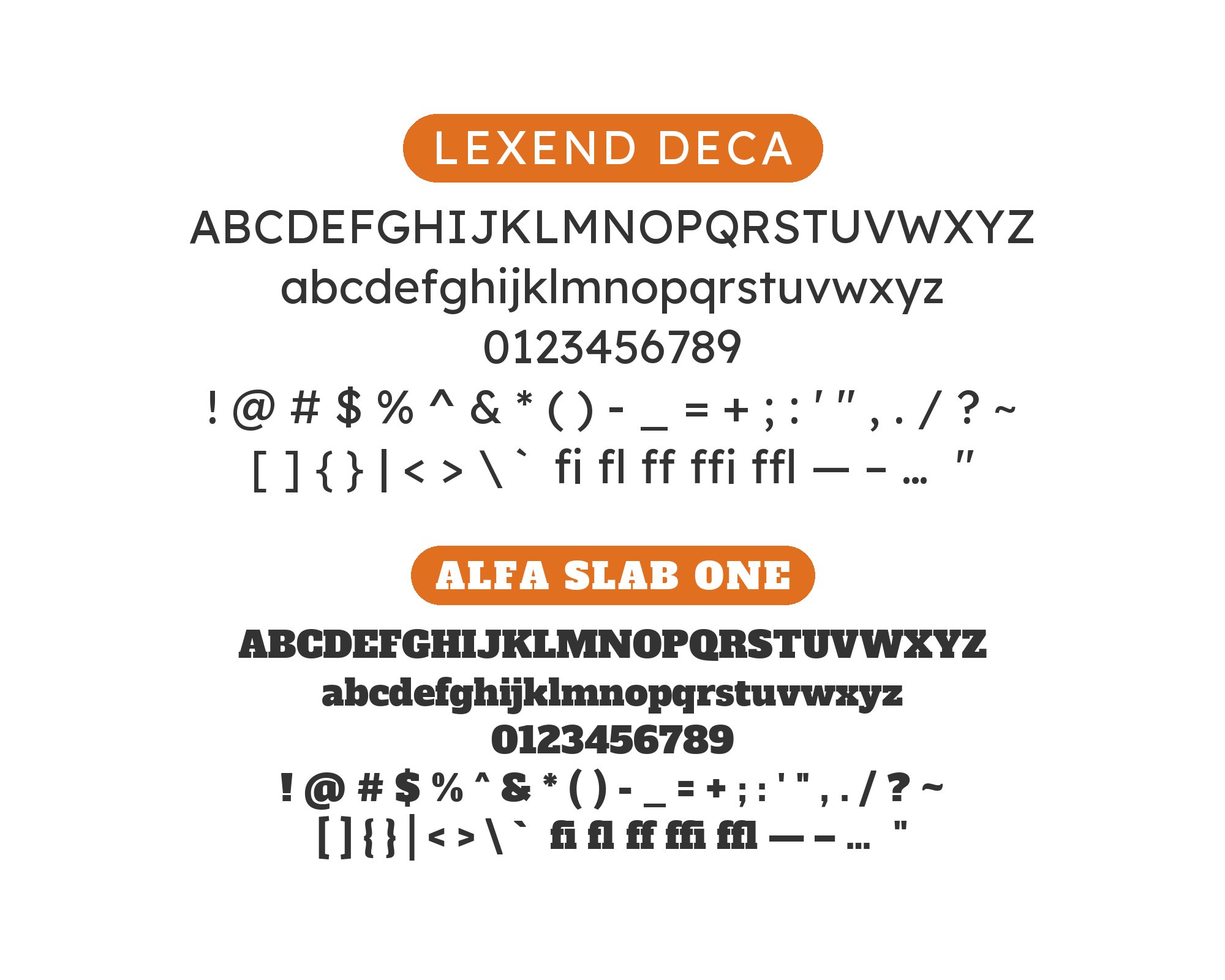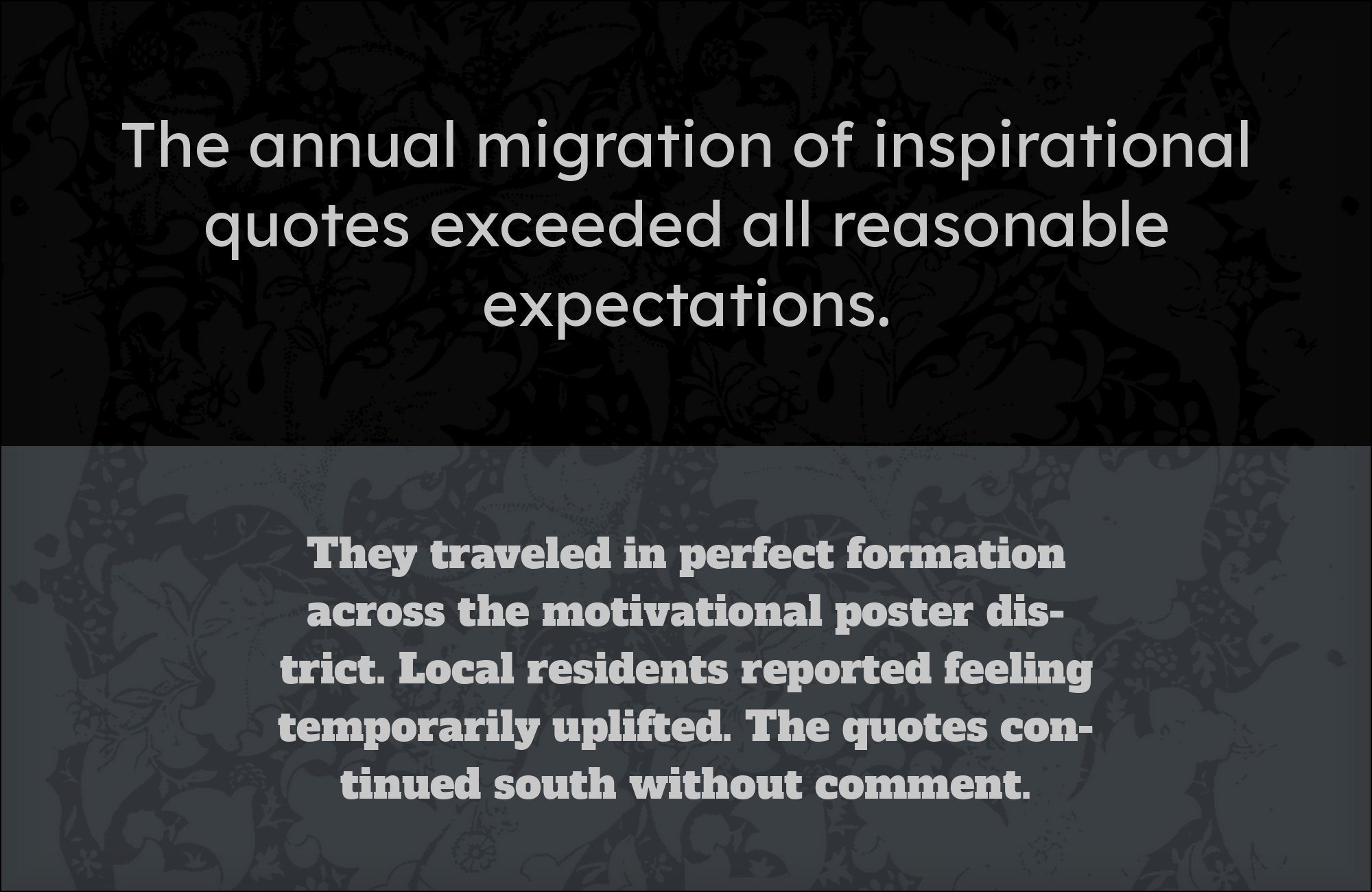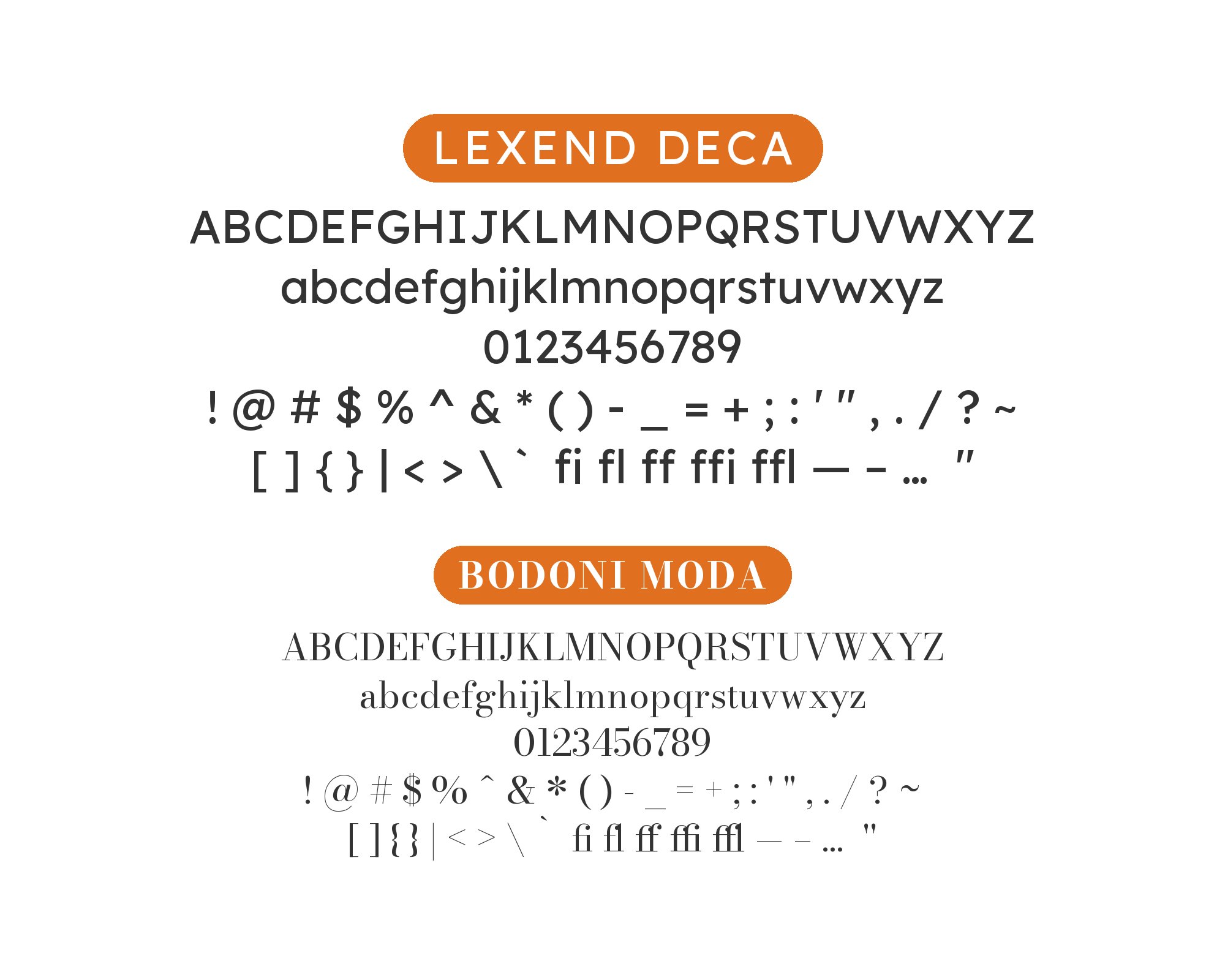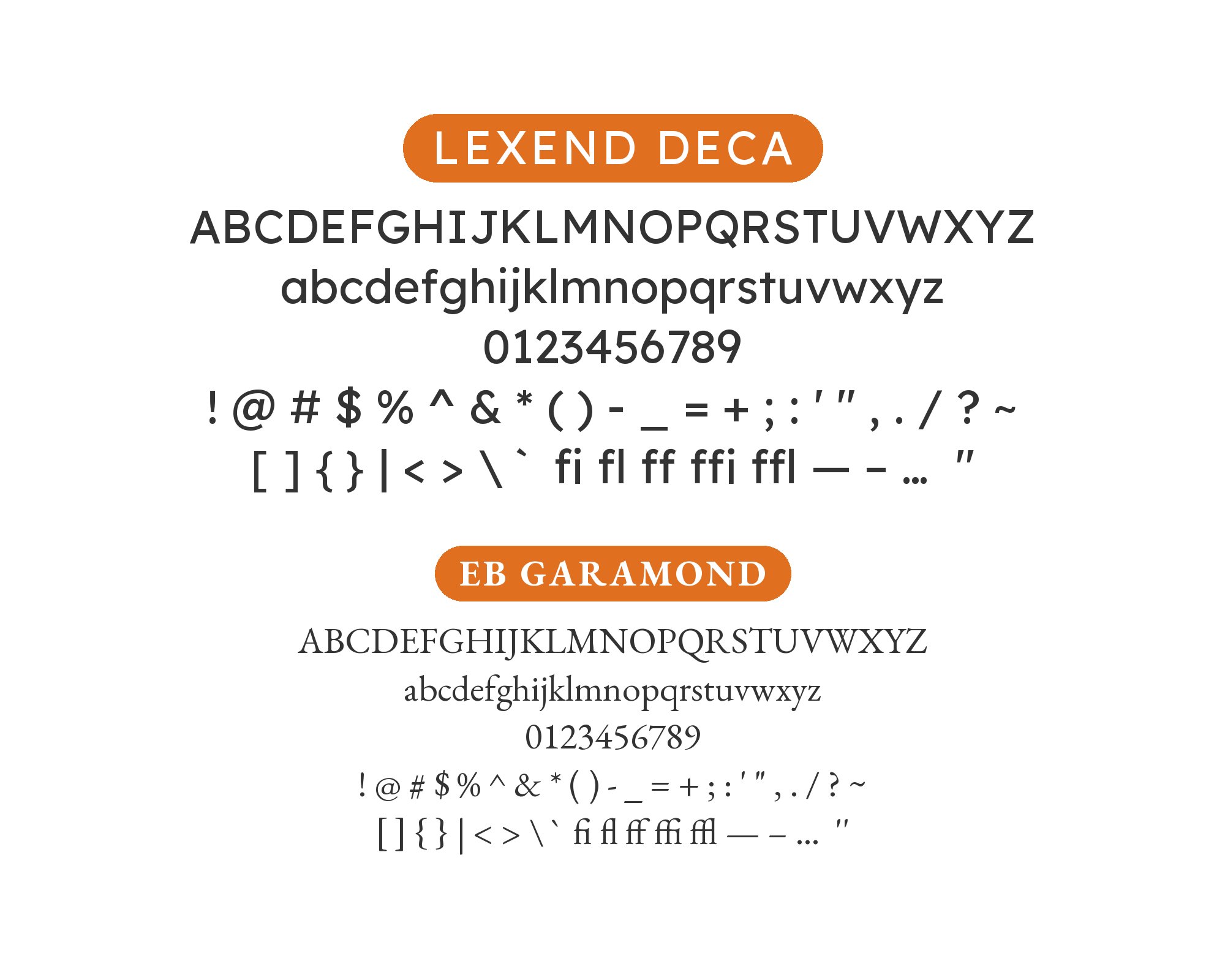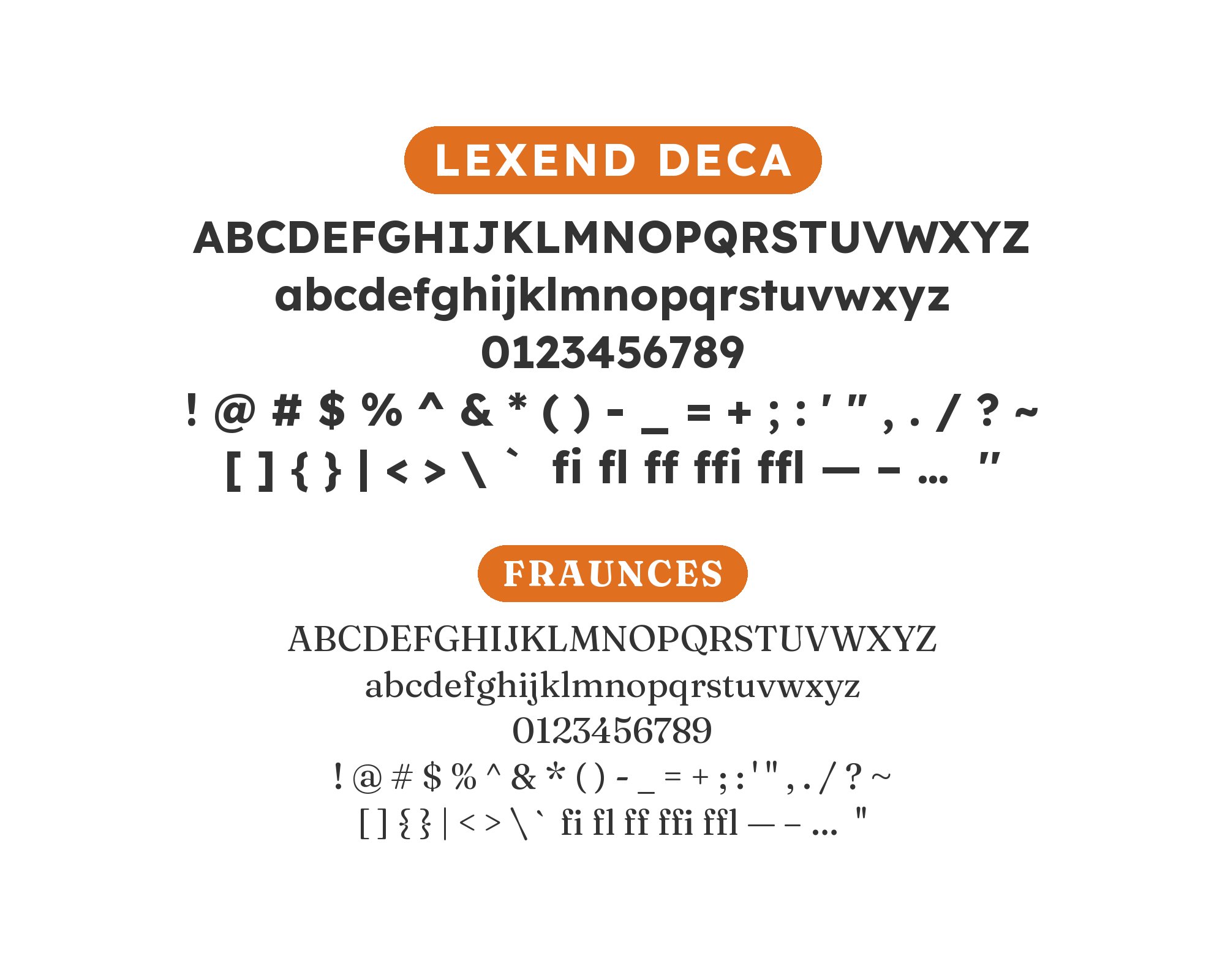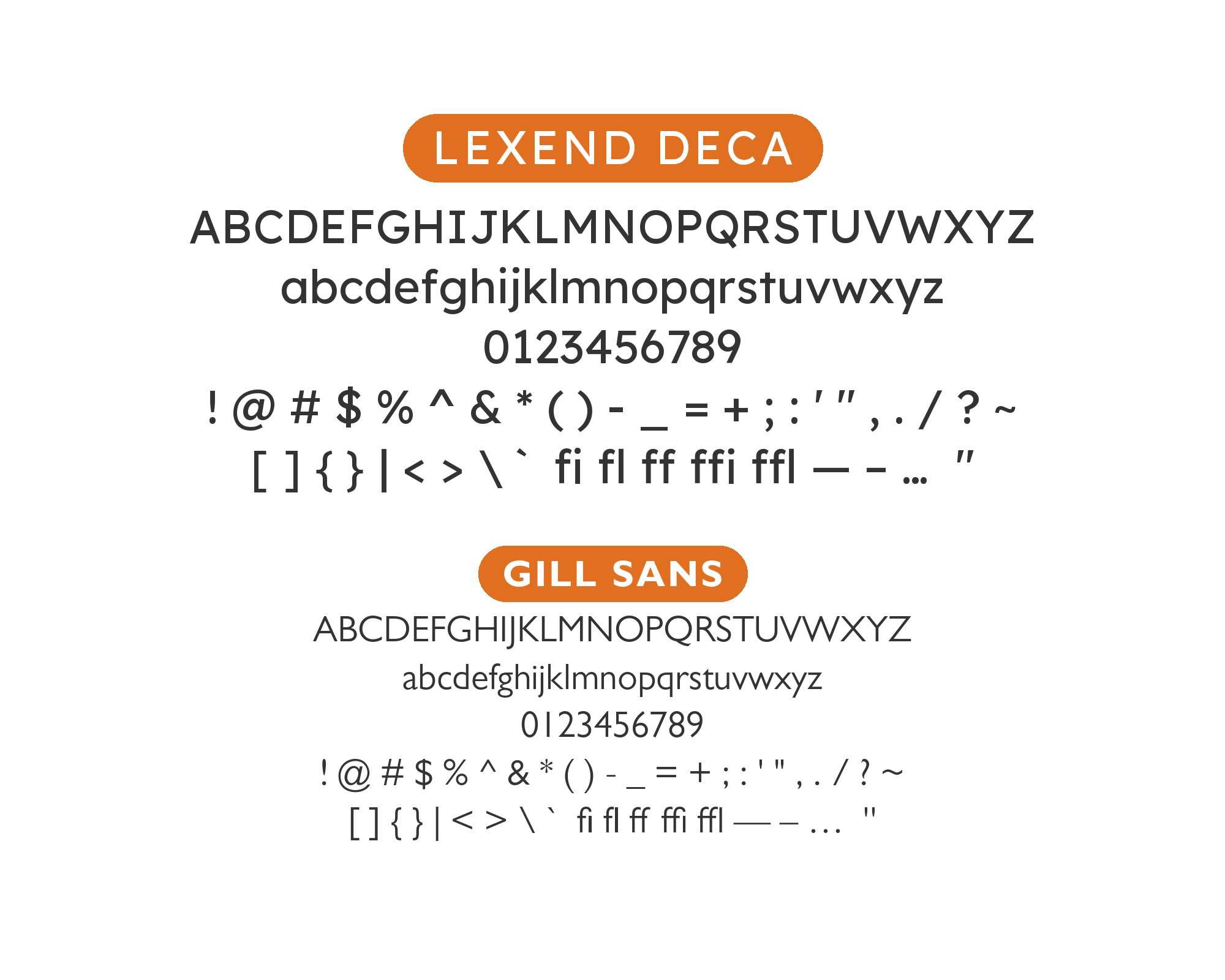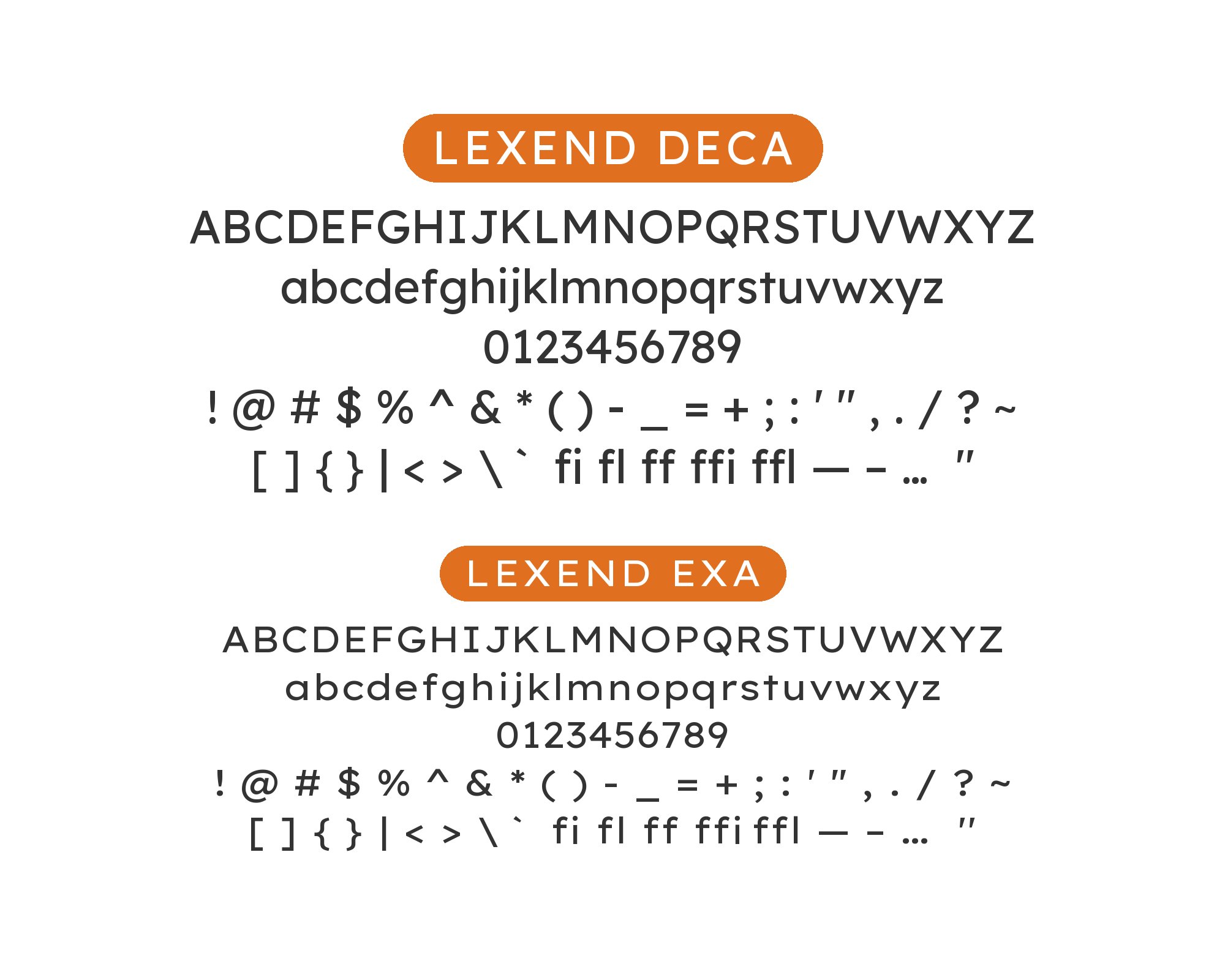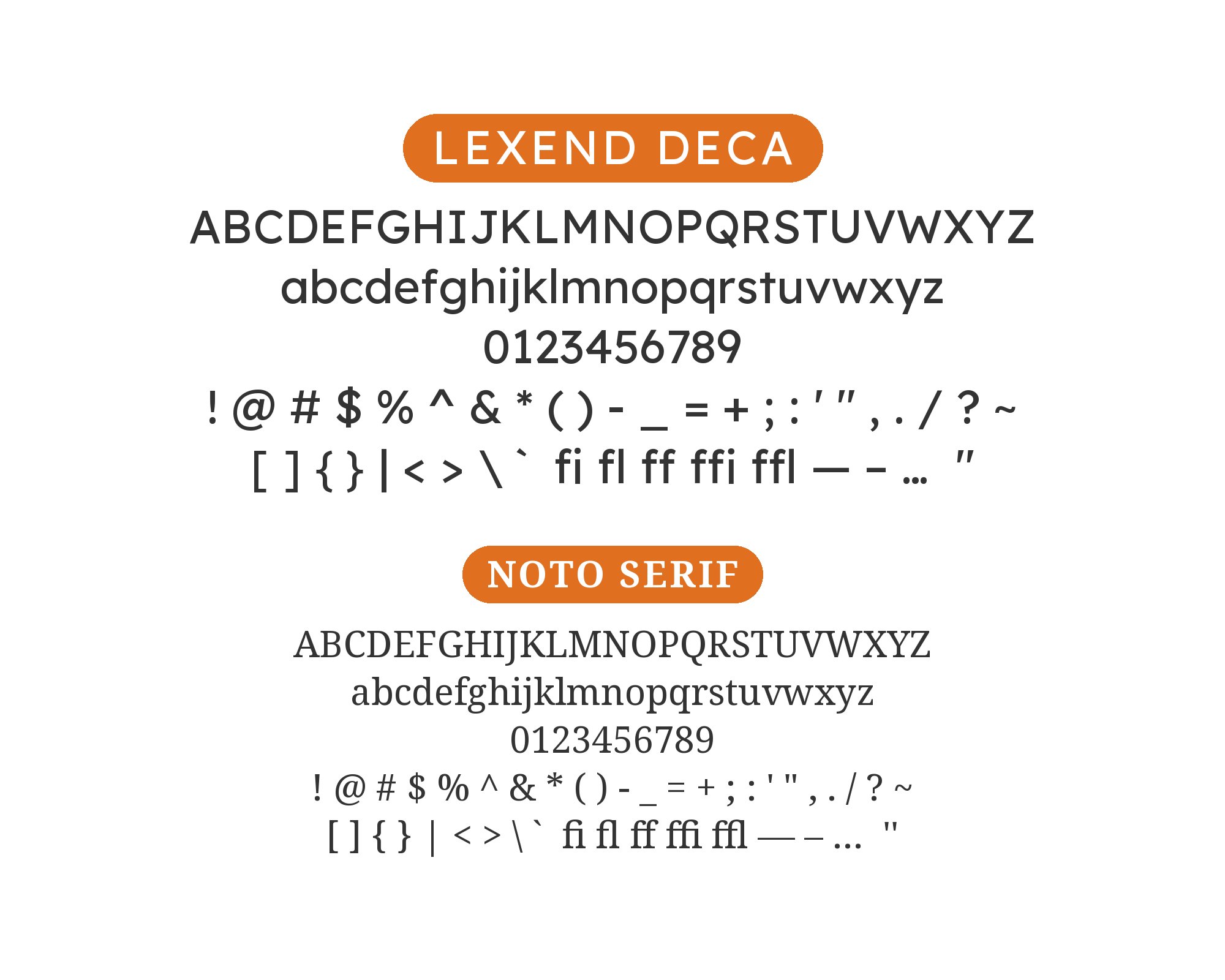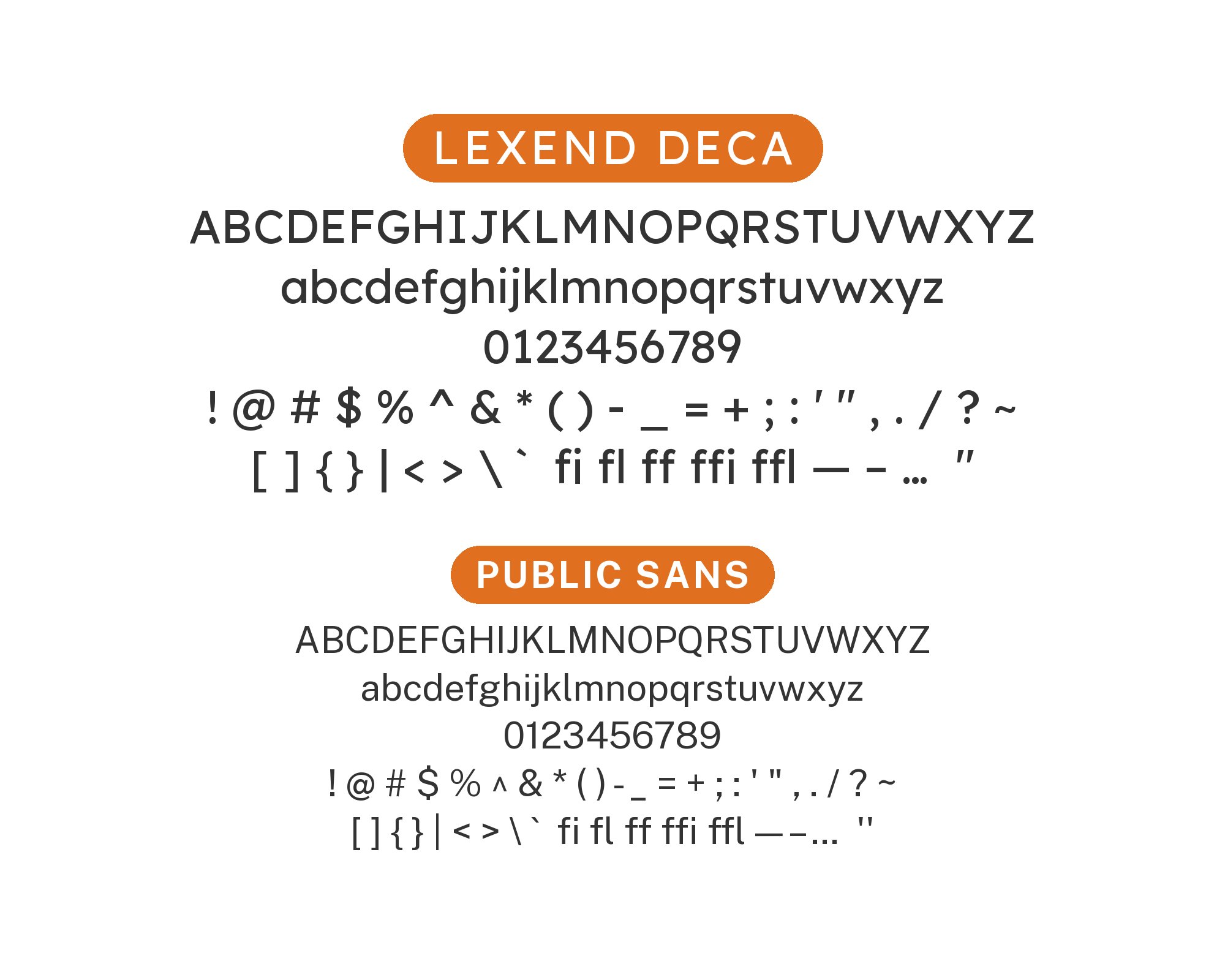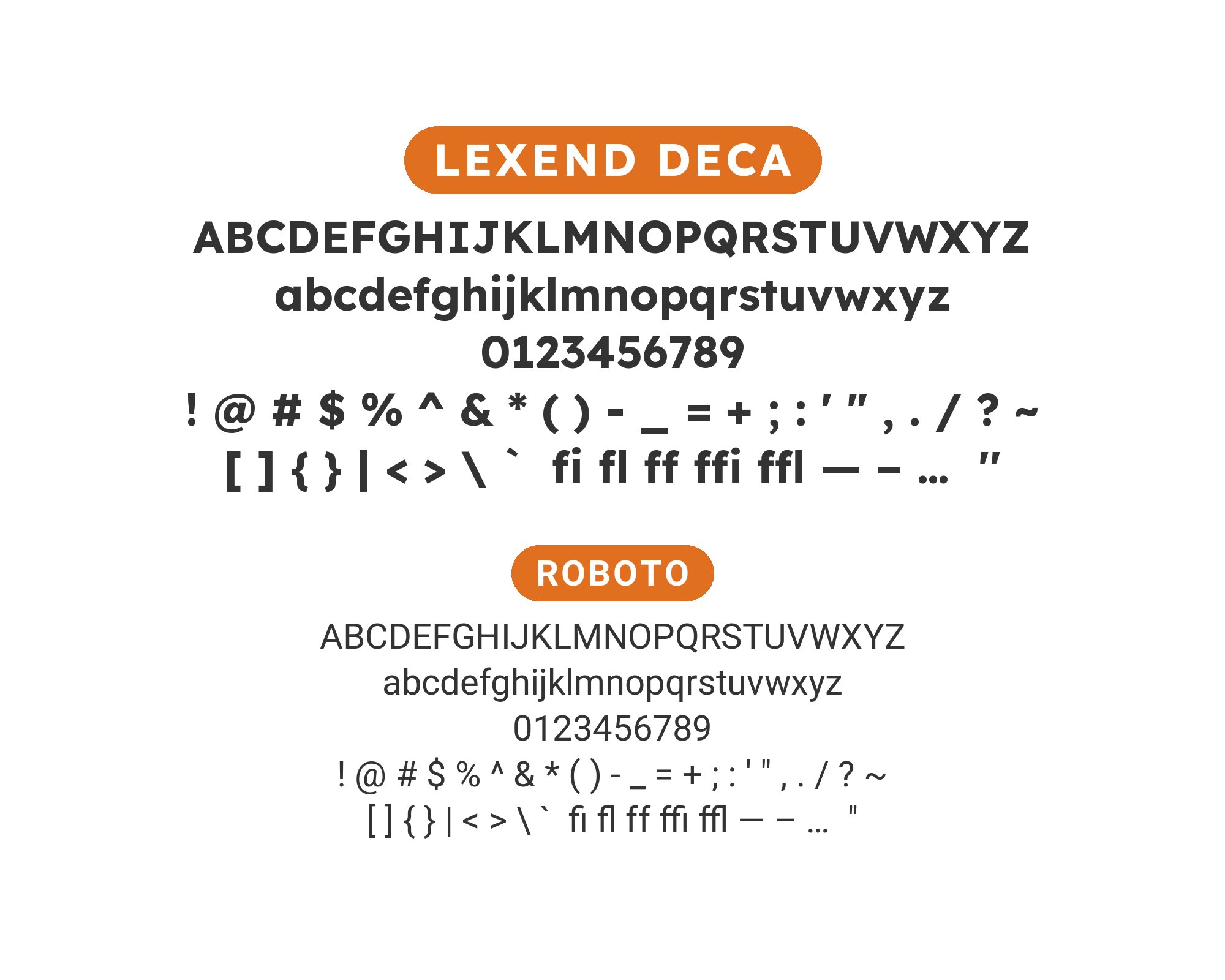
Lexend Deca pairs great with Zilla Slab, Gill Sans and Roboto Slab. All 15 pairings are shown below in real rendered specimens, with the reason each one works.
What fonts go with Lexend Deca? The useful answer starts from an unusual fact about the face: it was not drawn to look like anything. It was drawn to be measured, and the partner you choose either protects that measurement or wastes it.
Dr. Bonnie Shaver-Troup, an educational therapist, began observing in 1999 that reading difficulty was masking her clients’ actual intelligence. By 2000 she had a testable theory: reading performance should improve with a sans-serif to cut visual noise, enlarged scaling to aid character recognition, and hyper-expanded character spacing to reduce the crowding that makes adjacent letters mask one another. Type designer Thomas Jockin turned those Shaver-Troup Formulations into drawings, with Héctor Gómez and Santiago Orozco contributing, and the family reached Google Fonts in 2019. The first set is seven width cuts that get steadily more tracked-out, each with more letter spacing than the last — Deca, Exa, Giga, Mega, Peta, Tera and Zetta. Font Bureau added a Thin-to-Black weight axis in 2021. Google Fonts currently treats the later variable family named Lexend as identical to Lexend Deca, so Deca is the normal-width step rather than a wider second step.
That construction dictates the pairing logic. Lexend Deca has almost no stroke contrast, no calligraphic stress and no decorative terminals, because every one of those features was treated as noise to be removed. It therefore cannot supply visual interest, and it should not be asked to. The partner’s job is to carry all the personality at display size while leaving Lexend Deca’s expanded tracking untouched in the text, where the research effect actually lives. Here are 15 fonts that pair with Lexend Deca.
1. Zilla Slab
Typotheque drew Zilla Slab for Mozilla’s 2017 brand identity, adapting the foundry’s own Tesla Slab into a face with flat, unbracketed rectangular serifs. It is the only partner that two independent design writers name for this family. Matt Medley calls the pair research-backed legibility with approachable editorial structure, and Leadpages sets Lexend as the headline font over Zilla Slab paragraphs. The structural argument holds: Lexend Deca’s blunt, even strokes keep a headline calm rather than decorative, while Zilla Slab’s serifs give paragraphs a texture the sans doesn’t supply. The two also share a fairly generous x-height, so they sit at compatible apparent sizes. Use Lexend Deca at 32px and above for headings and section titles, and keep Zilla Slab for every paragraph below them.
Eric Gill designed Gill Sans for Monotype in 1928, building a humanist sans on classical Roman proportions rather than on a grotesque skeleton. A condensed Gill Sans cut appears with Lexend in a documented 2023 report design, and the reason is width. Gill Sans Bold Extra Condensed is far narrower than Lexend Deca, which makes the two a legible width split rather than a stylistic argument — one face squeezed to its limit, one opened past normal. Gill Sans also brings the classical cap proportions and true humanist rhythm that Lexend Deca’s engineered spacing has no interest in reproducing. Reach for it when a document needs a narrow, authoritative display line over generously spaced text, especially in reports, annuals and anything with a column grid to respect.
3. Roboto Slab
Christian Robertson drew Roboto Slab as the slab-serif branch of Google’s Roboto superfamily, keeping Roboto’s mechanical skeleton and adding blunt, low-contrast rectangular serifs. It appears with Lexend Exa on a live photography site, where Lexend Exa sets navigation and subheadings and Roboto Slab sets the body text. Published UI typography guidance recommends the reverse split, a slab for headings over a sans for body text. The mechanism is straightforward. Roboto Slab’s serifs add mass and horizontal emphasis at display size, while its underlying grotesque proportions stay close enough to Lexend Deca’s that the page still reads as one typographic voice rather than two competing ones. Set Roboto Slab in Bold for headings and subheadings on content-heavy pages, dashboards and documentation, where Lexend Deca’s open tracking is carrying long stretches of reading.
4. Bodoni Moda
Owen Earl’s indestructible type* foundry released Bodoni Moda as an optical-size Bodoni family, with hairline serifs and extreme thick-to-thin transitions preserved rather than softened. The two run together on a live hotel site, and the pairing is the most extreme contrast available to Lexend Deca. Lexend Deca has a flat monoline stroke by design; Bodoni Moda’s stroke swings from heavy stem to near-invisible hairline within a single letter. Nothing in the two faces overlaps, so the reader never confuses the display layer with the reading layer. Use Bodoni Moda only at large display sizes — 40px and up — where its hairlines survive rendering, and let Lexend Deca handle every line of running text and interface label beneath it.
Talk to Douglas5. EB Garamond
Georg Duffner, later joined by Octavio Pardo, digitised EB Garamond from the 1592 Egenolff-Berner specimen, preserving Claude Garamont’s sixteenth-century old-style proportions rather than modernising them. A pairing guide shows EB Garamond with Lexend Deca, and a display-over-body division of labour is sound. EB Garamond has a small x-height, pronounced calligraphic stress and delicate serifs — qualities that give a page genuine literary authority at large sizes but that struggle in long screen paragraphs at typical interface sizes. Lexend Deca has the opposite profile and takes the reading load. Set EB Garamond for headlines, pull quotes and chapter openers in editorial, educational or publishing contexts, and let Lexend Deca carry the body where its expanded tracking earns its keep.
6. Noto Serif
Google’s Noto project built Noto Serif as the serif branch of a family designed to cover roughly a thousand languages, so that no script renders as an empty “tofu” box. A published book on user interface typography names Lexend for headings with Noto Serif for body text as its worked example of the sans-heading, serif-body formula — and the pairing is equally strong reversed. Noto Serif’s even colour and moderate contrast make it a stable reading serif, while its script coverage is the practical counterpart to a family built around reading performance: a multilingual product can keep both roles consistent across writing systems. Use this combination for educational platforms, government services and documentation that must ship in many languages without the typography fragmenting.
7. Public Sans